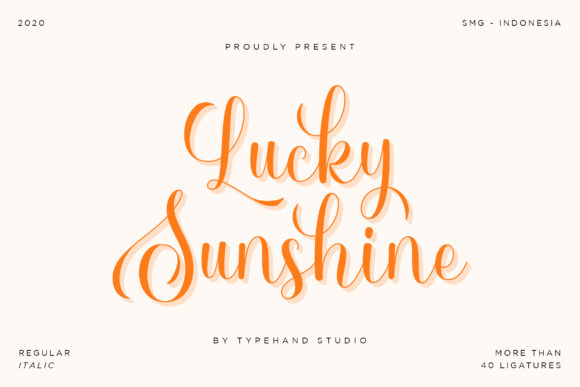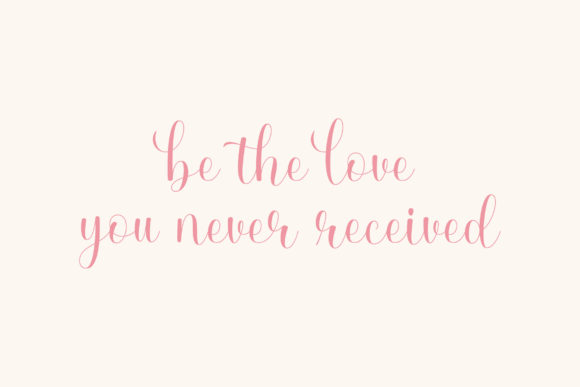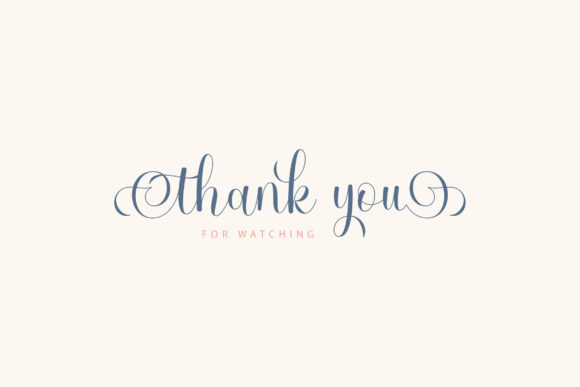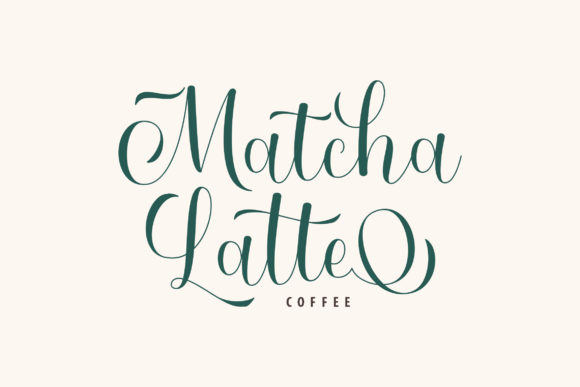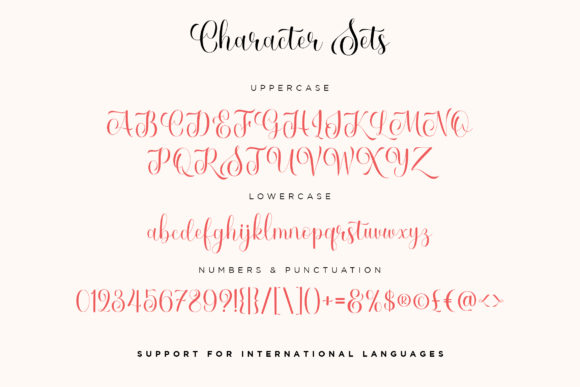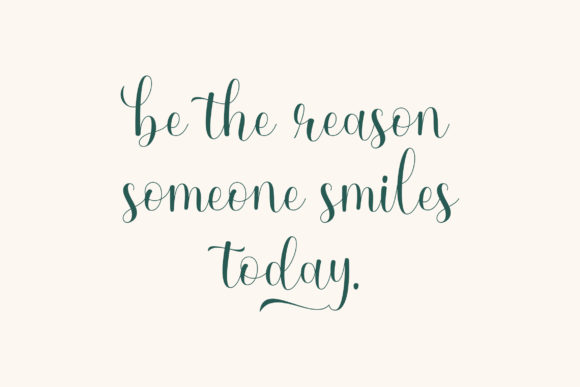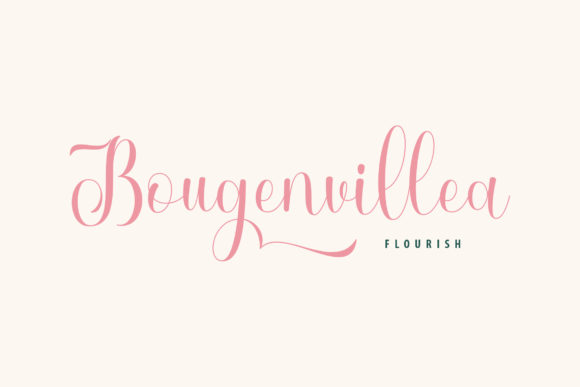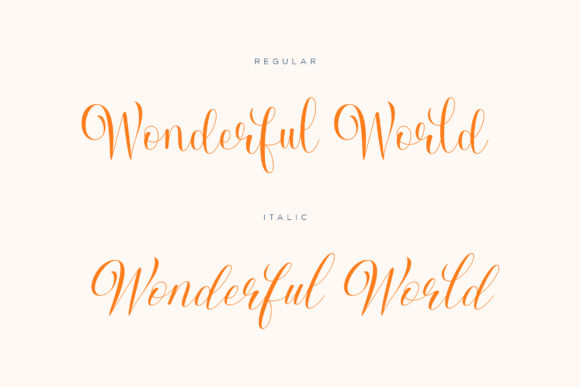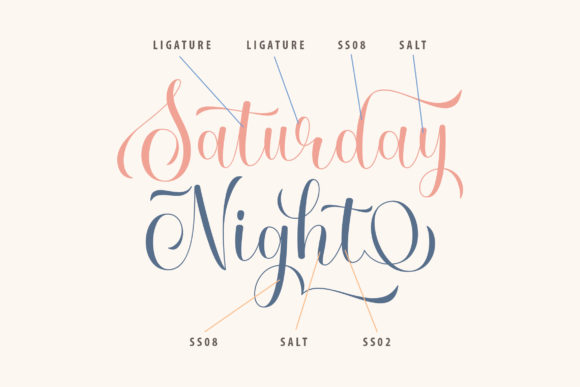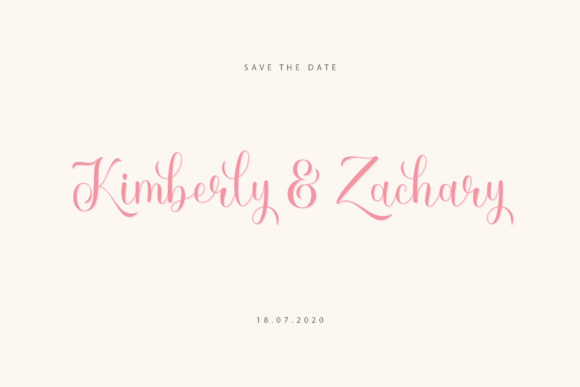
Lucky Sunshine Font
About Lucky Sunshine Font
Lucky Sunshine feels equally charming and elegant. It looks stunning on wedding invitations, thank you cards, quotes, greeting cards, logos, business cards and every other design which needs a handwritten touch.